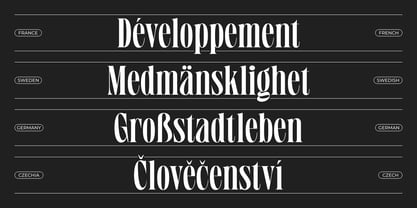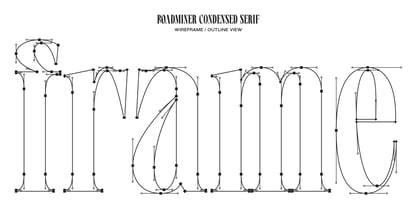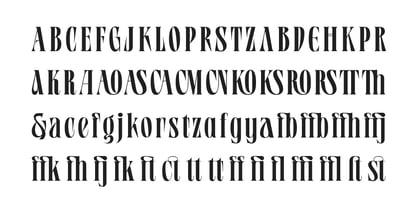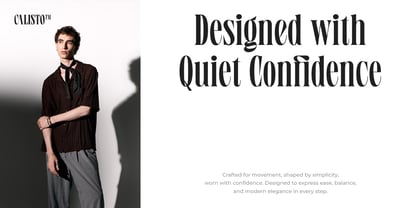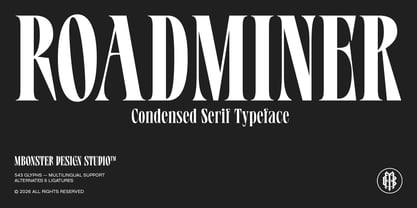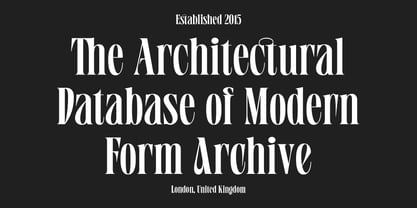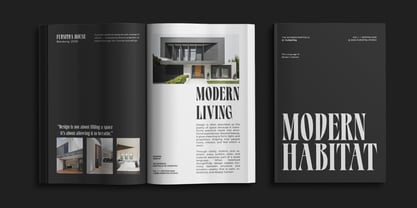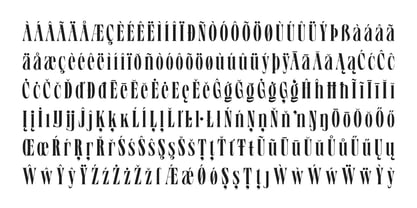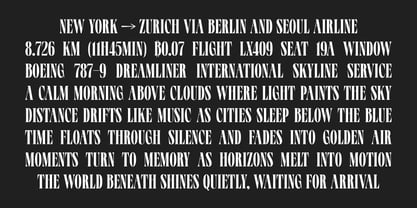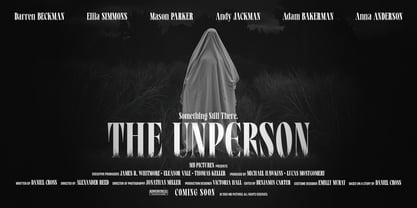
Roadminer
by Mbonster
The Roadminer Font Family was designed by Rizka Rony Setiawan and published by Mbonster. Roadminer contains 1 styles. More about this family
Roadminer is a condensed serif typeface that brings sophistication and presence to modern design. With its tall structure and refined contrast, it delivers a distinctive editorial feel while remaining clean and contemporary. Ideal for headlines, branding, and visual statements, Roadminer adds character and confidence without overpowering the message. Note: All characters are also available and accessible via the Adobe Illustrator Glyphs Panel and the Adobe Photoshop Character Panel. This font is also PUA encoded, making all alternate characters accessible in software that does not support OpenType features.
Designers: Rizka Rony Setiawan
Foundry: Mbonster